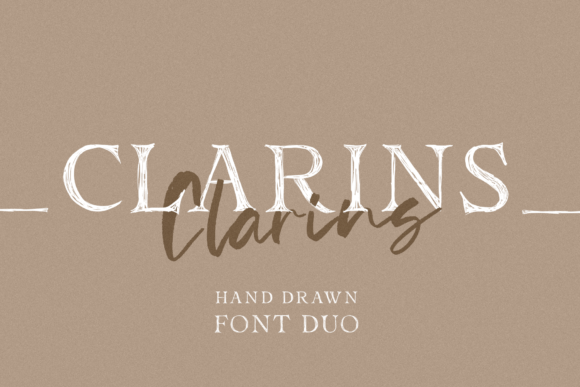
Introducing Clarins Font: Elevate Your Designs with Elegance and Sophistication
Are you a designer or crafter looking for a font that can bring your creative ideas to life? Look no further than Clarins Font, a stunning duo font that combines the elegance of script and serif styles. Masterfully designed to become a true favorite, Clarins Font has the potential to elevate each of your designs to the highest level.
What is Clarins Font?
Clarins Font is a unique and versatile font that consists of two complementary styles: script and serif. This duo font is carefully crafted to provide a harmonious balance between elegance and readability, making it perfect for a wide range of design applications. Whether you’re working on a logo, branding project, or craft project, Clarins Font is sure to impress.
Key Features of Clarins Font
- Beautiful Script Style: The script style of Clarins Font is designed to add a touch of elegance and sophistication to your designs. With its flowing curves and refined lines, this style is perfect for creating luxurious and high-end designs.
- Classic Serif Style: The serif style of Clarins Font provides a sense of tradition and stability, making it ideal for designs that require a more formal and classic look.
- Versatile and Adaptable: Clarins Font is designed to be versatile and adaptable, making it suitable for a wide range of design applications, from logos and branding to craft projects and digital designs.
- Easy to Read: Despite its elegant and refined design, Clarins Font is easy to read, even at small sizes, making it perfect for body text and other applications where readability is crucial.
Why Choose Clarins Font?
With so many fonts available, why choose Clarins Font? Here are just a few reasons why designers and crafters are falling in love with this beautiful duo font:
- Unique and Distinctive: Clarins Font is a unique and distinctive font that will help your designs stand out from the crowd.
- High-Quality Design: Clarins Font is masterfully designed to provide a high-quality look that will elevate your designs to the next level.
- Time-Saving: With Clarins Font, you can save time and effort by using a single font for multiple design applications.
How to Use Clarins Font
Clarins Font is easy to use and can be applied to a wide range of design applications. Here are a few ideas to get you started:
- Logo Design: Use Clarins Font to create a luxurious and high-end logo that will help your brand stand out.
- Branding: Apply Clarins Font to your branding materials, such as business cards, letterheads, and packaging, to create a consistent and cohesive look.
- Craft Projects: Add a touch of elegance and sophistication to your craft projects, such as scrapbooking, card making, and journaling, with Clarins Font.
- Digital Designs: Use Clarins Font in your digital designs, such as website headers, social media graphics, and email templates, to add a professional and polished touch.
In conclusion, Clarins Font is a beautiful and versatile duo font that is sure to become a true favorite among designers and crafters. With its elegant script style and classic serif style, Clarins Font has the potential to bring each of your creative ideas to the highest level. Whether you’re working on a logo, branding project, or craft project, Clarins Font is the perfect choice for adding a touch of sophistication and elegance.